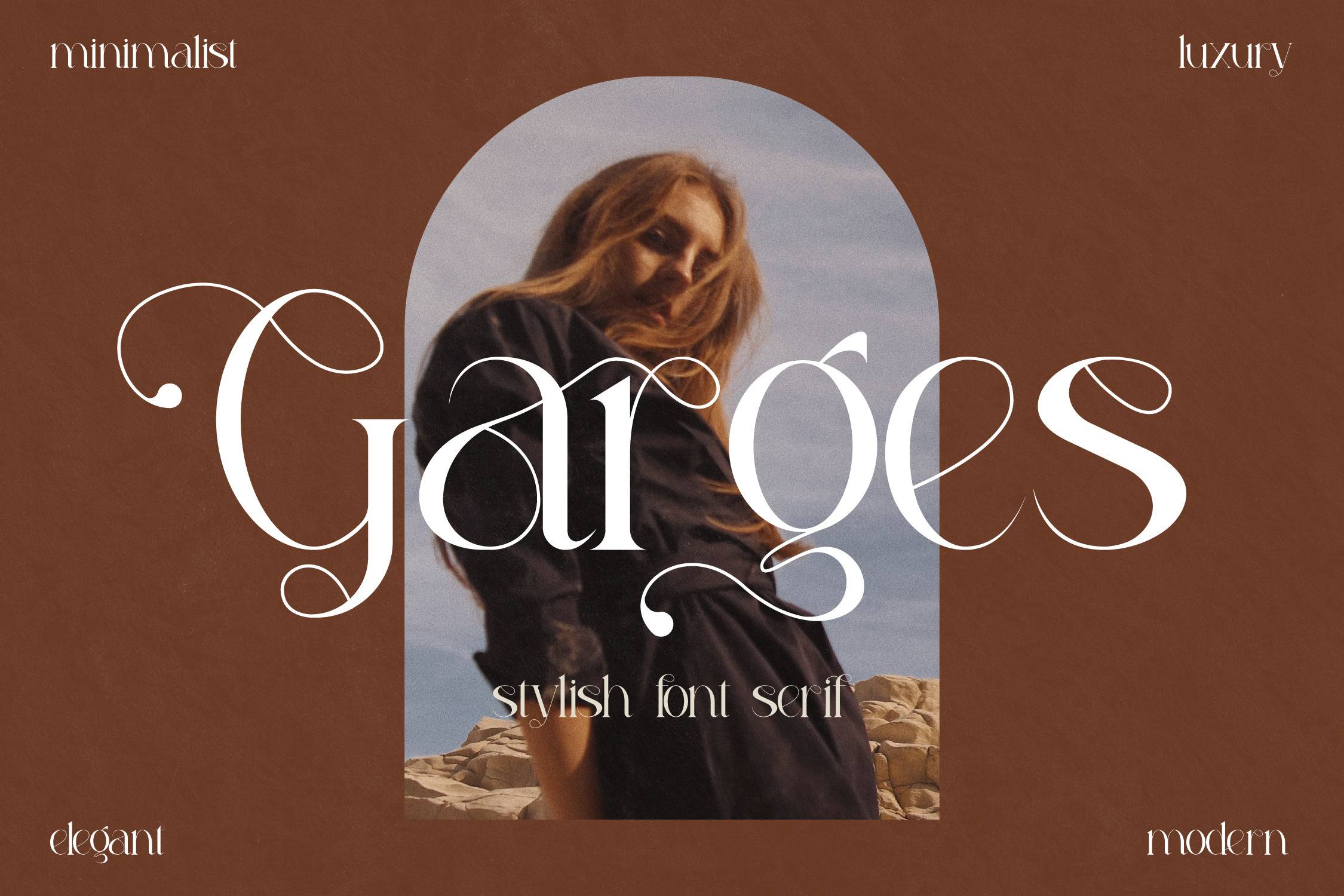
Proudly present Garges Typeface, created by Storytype, A serif modern and classic typeface that has own unique style & modern look. This typeface is perfect for an elegant & luxury logo, book or movie title design, fashion brand, magazine, clothes, lettering, quotes, and so much more.